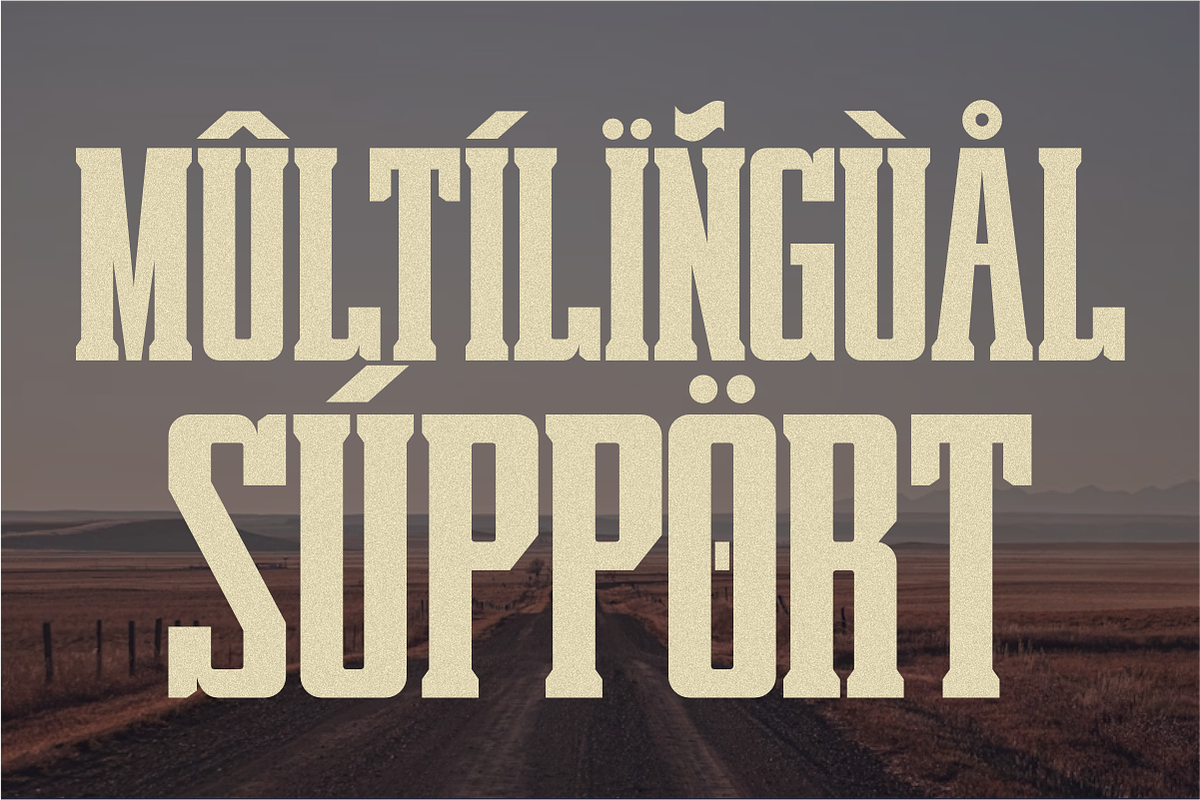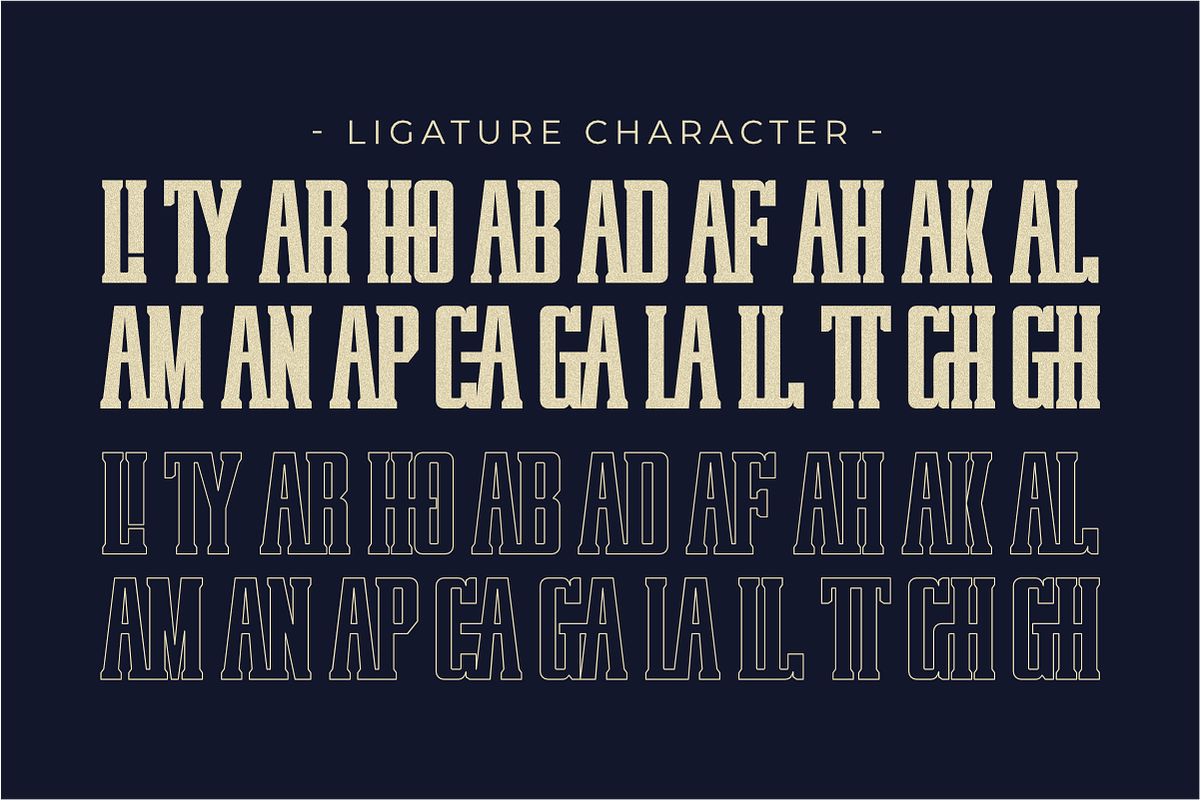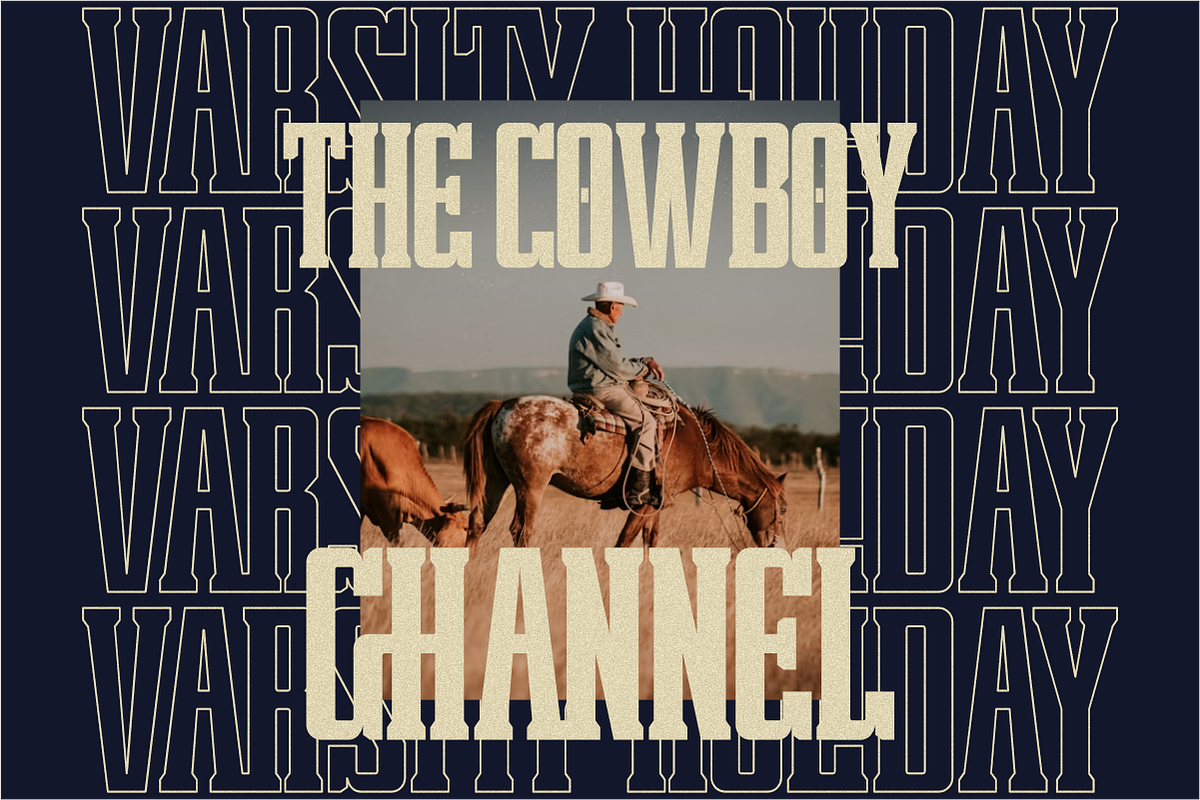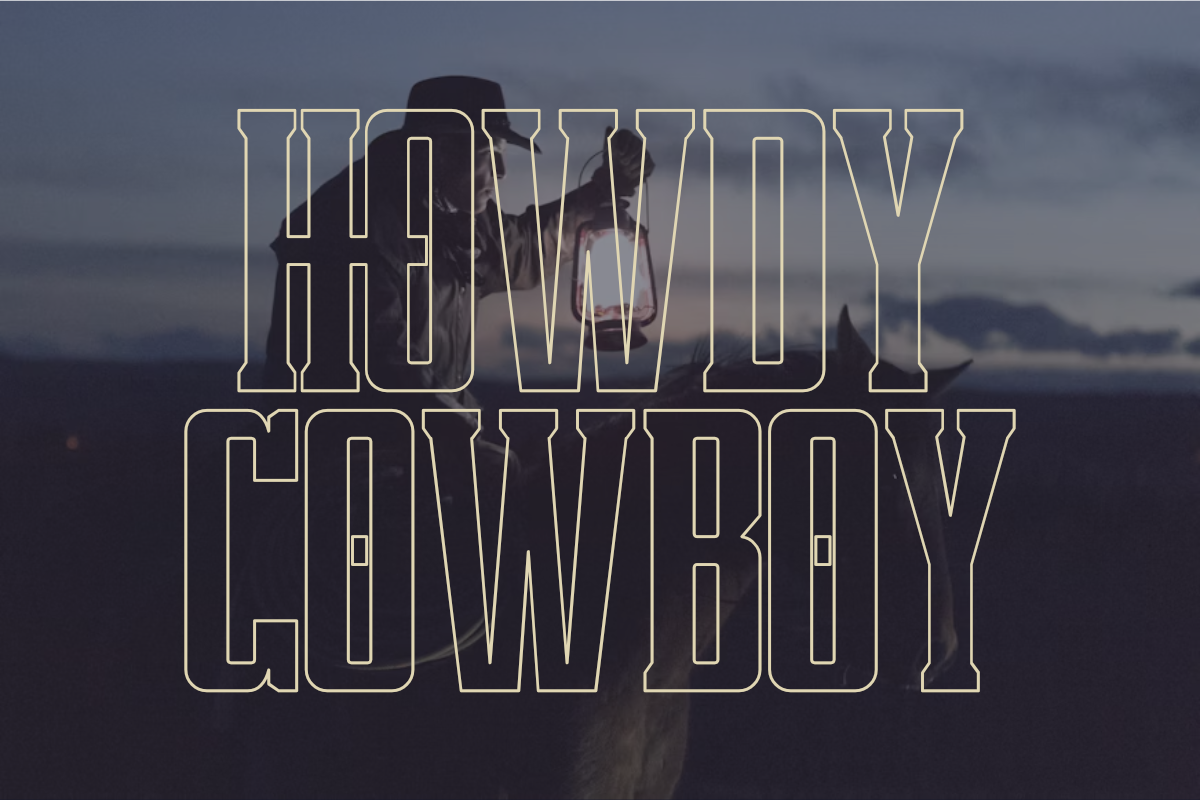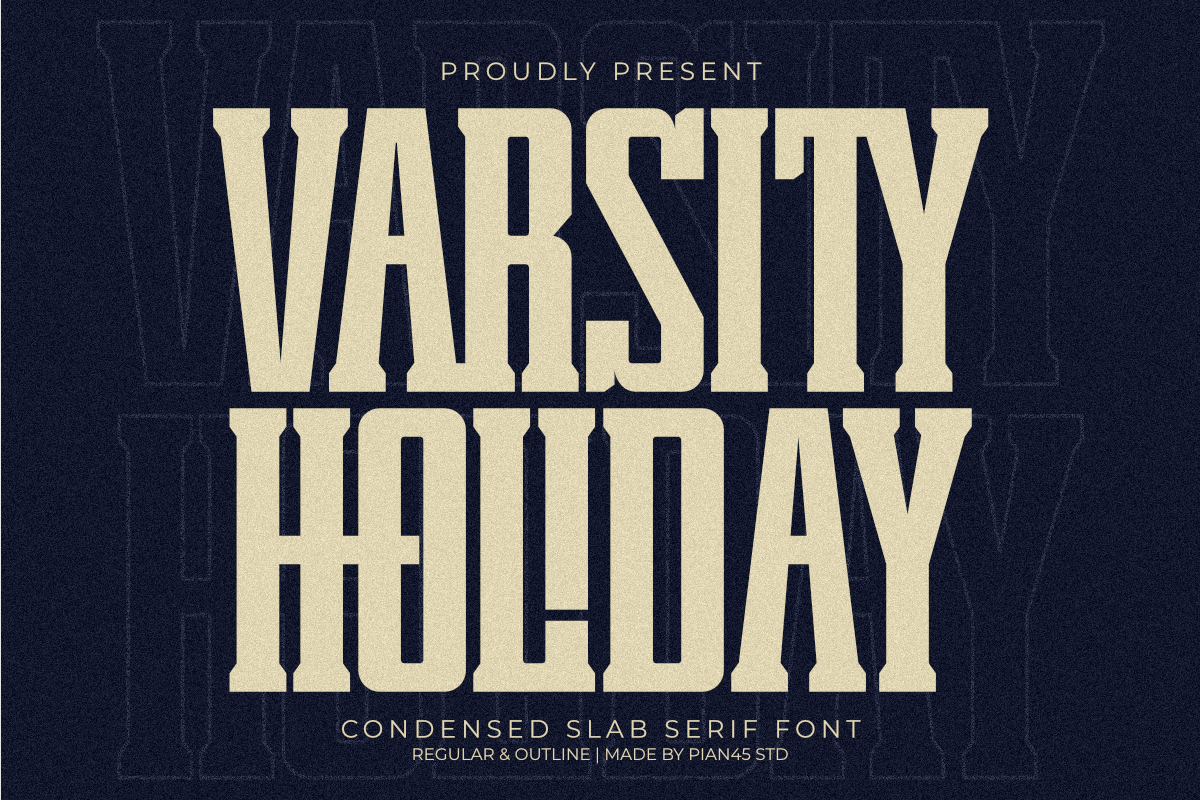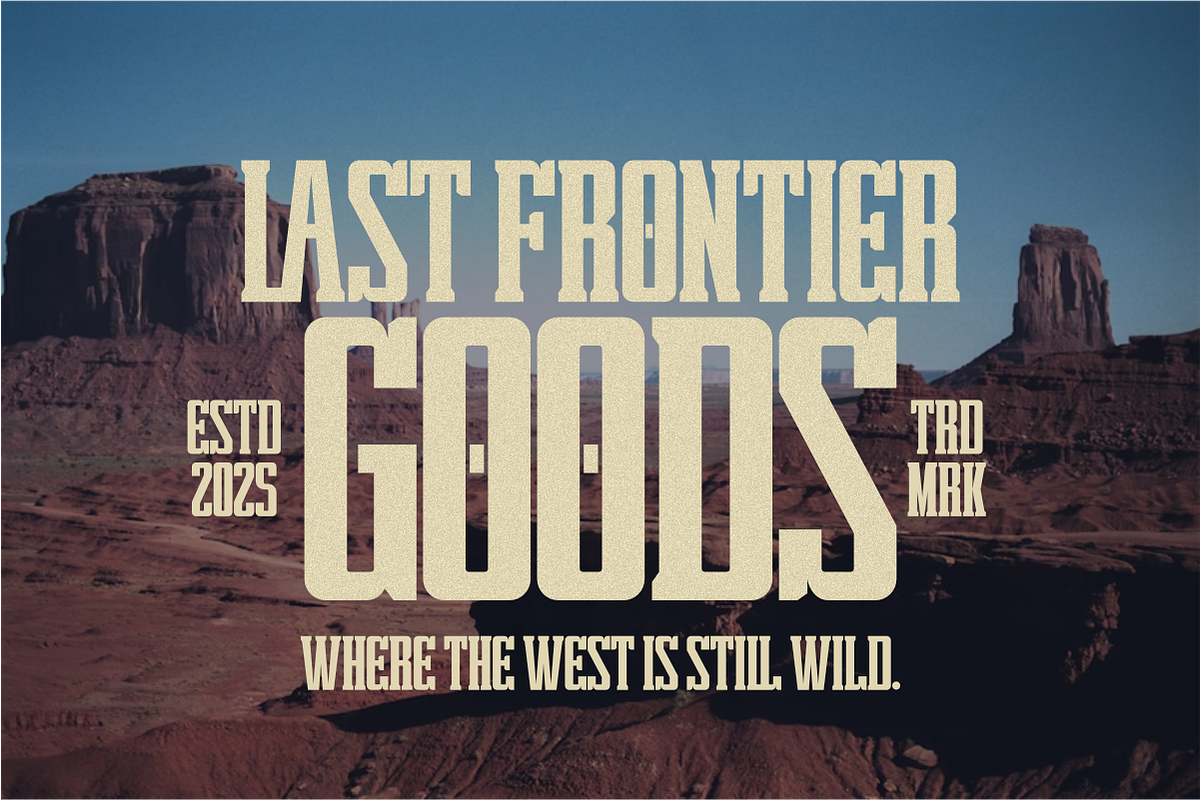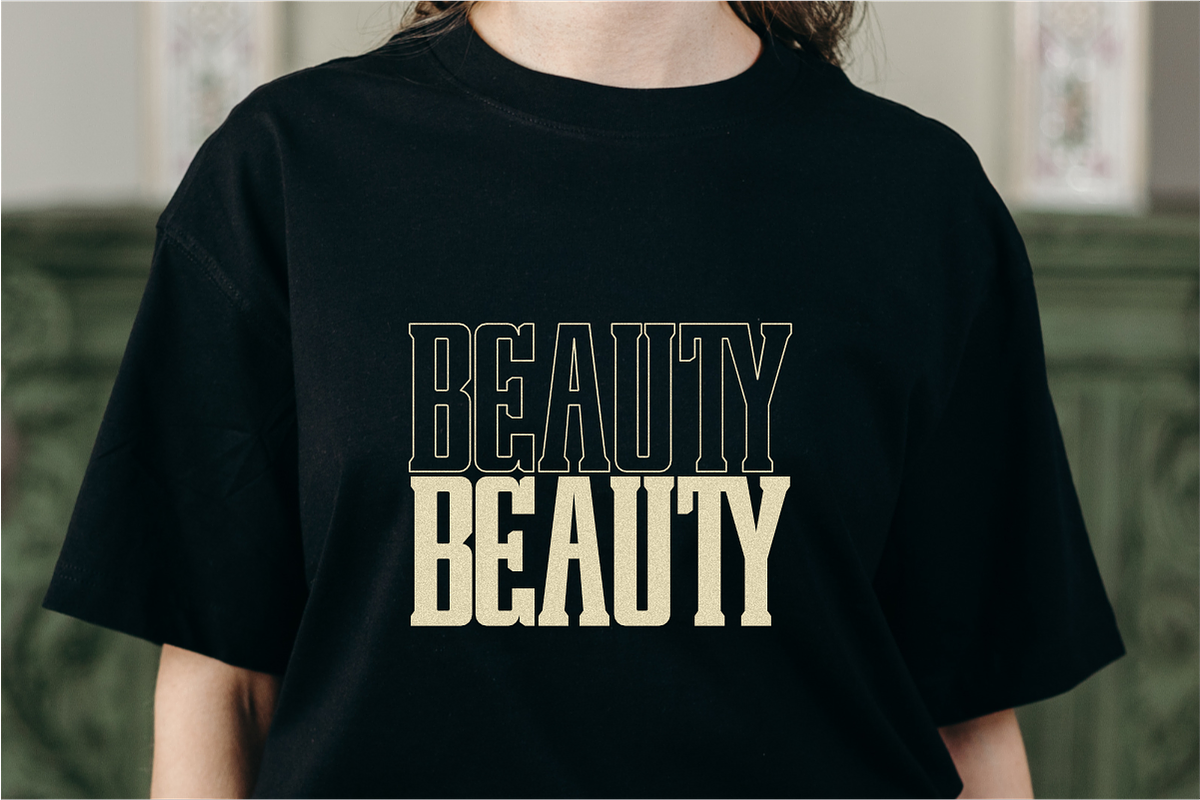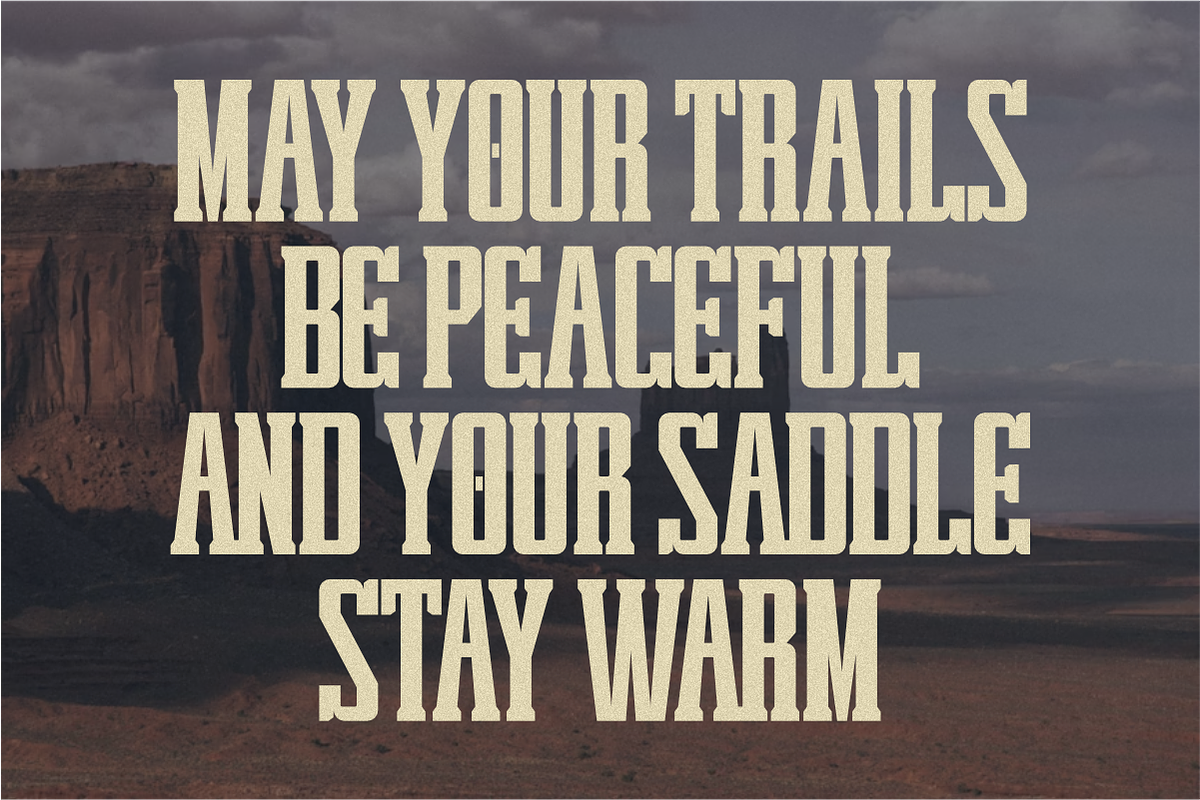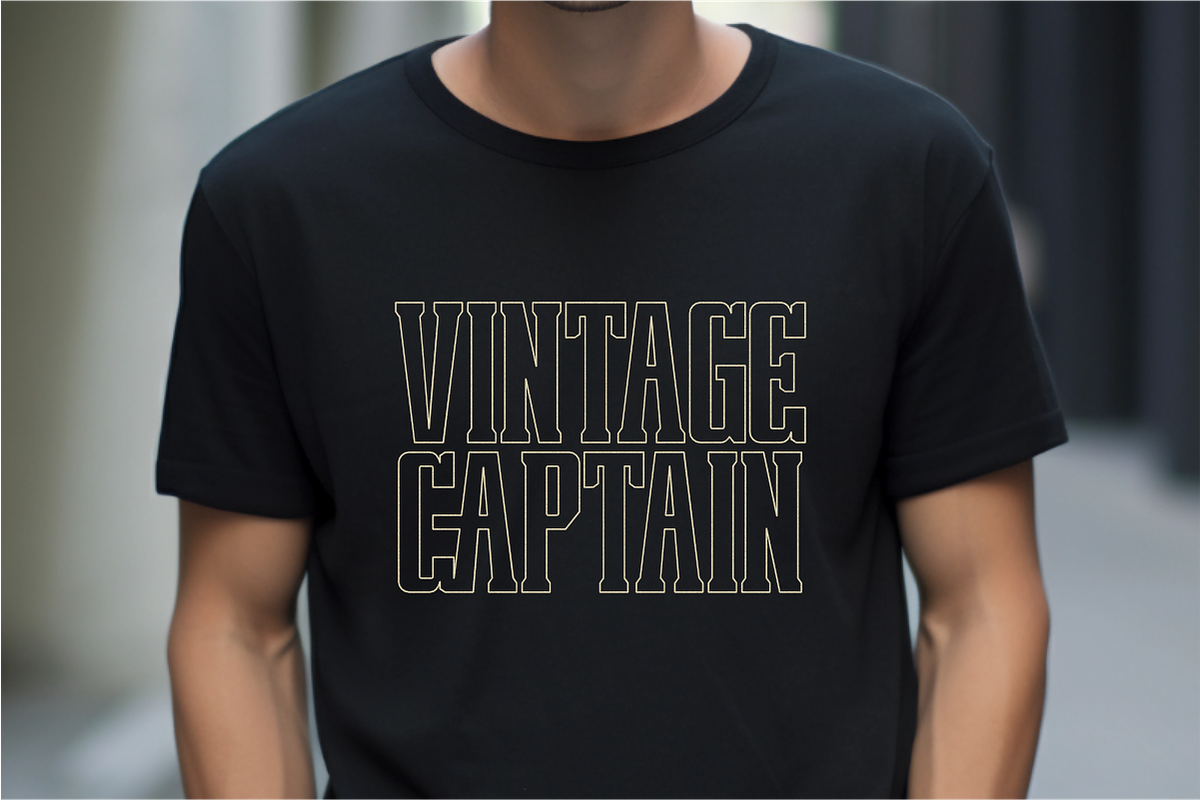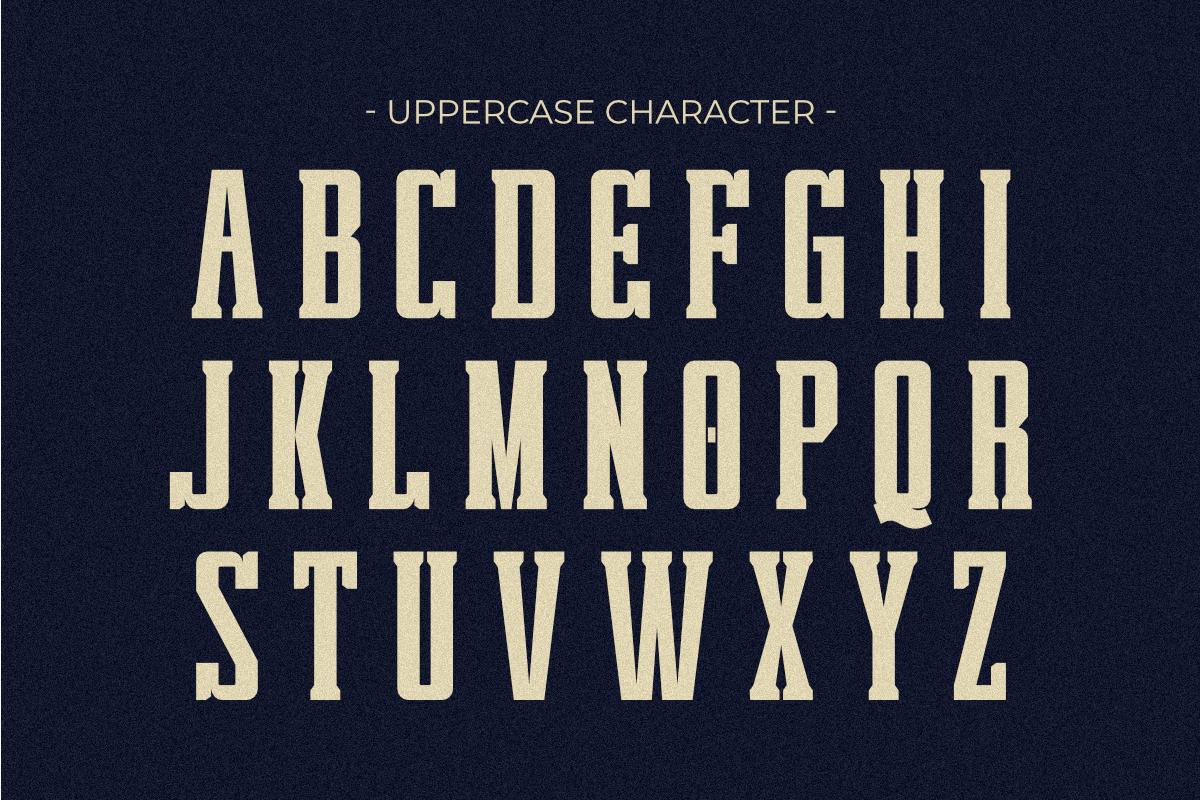
Varsity Holiday - Condensed Slab
Varsity Holiday is a vintage condensed slab serif font inspired by cowboy western style and retro varsity aesthetics. Perfect for bold headlines, sports posters, rodeo events, old west branding, rustic logos, classic signage, whiskey labels, retro apparel designs, western movie titles, vintage packaging, Americana themes, strong editorial layouts, and nostalgic advertising. This typeface comes in Regular and Outline styles, making it versatile for both modern retro projects and authentic vintage designs. Ideal for designers who want a rugged, bold, and timeless slab serif look.